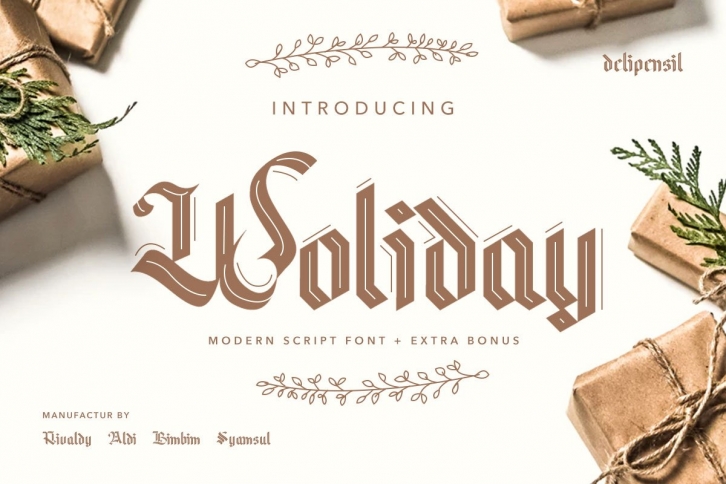
Introducing Woliday Medium Font + Extra Bonus the stunning cool Modern fonts, this font come with really unique character, beauty clean and wonderfull look too, and this font Suitable for Gift Lettering, logo letter, Display font, Holiday and New Year concept, Poster, clothing design, and many more .